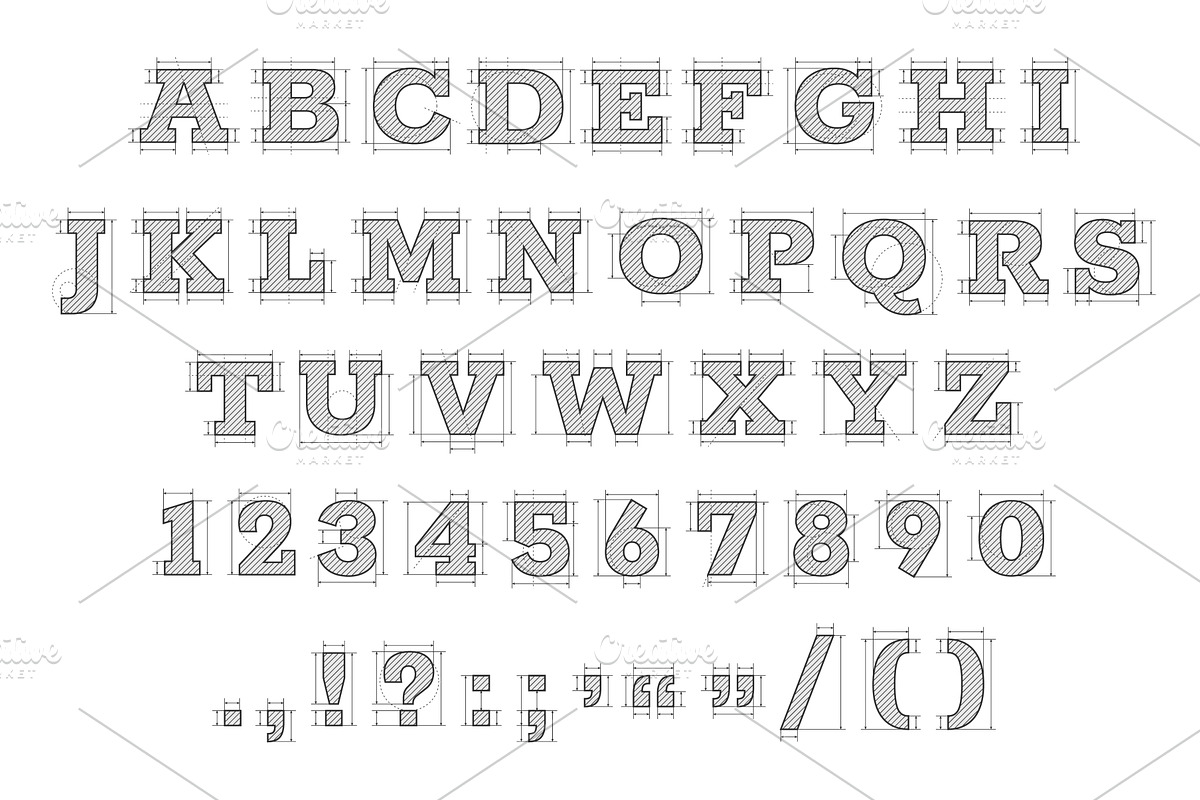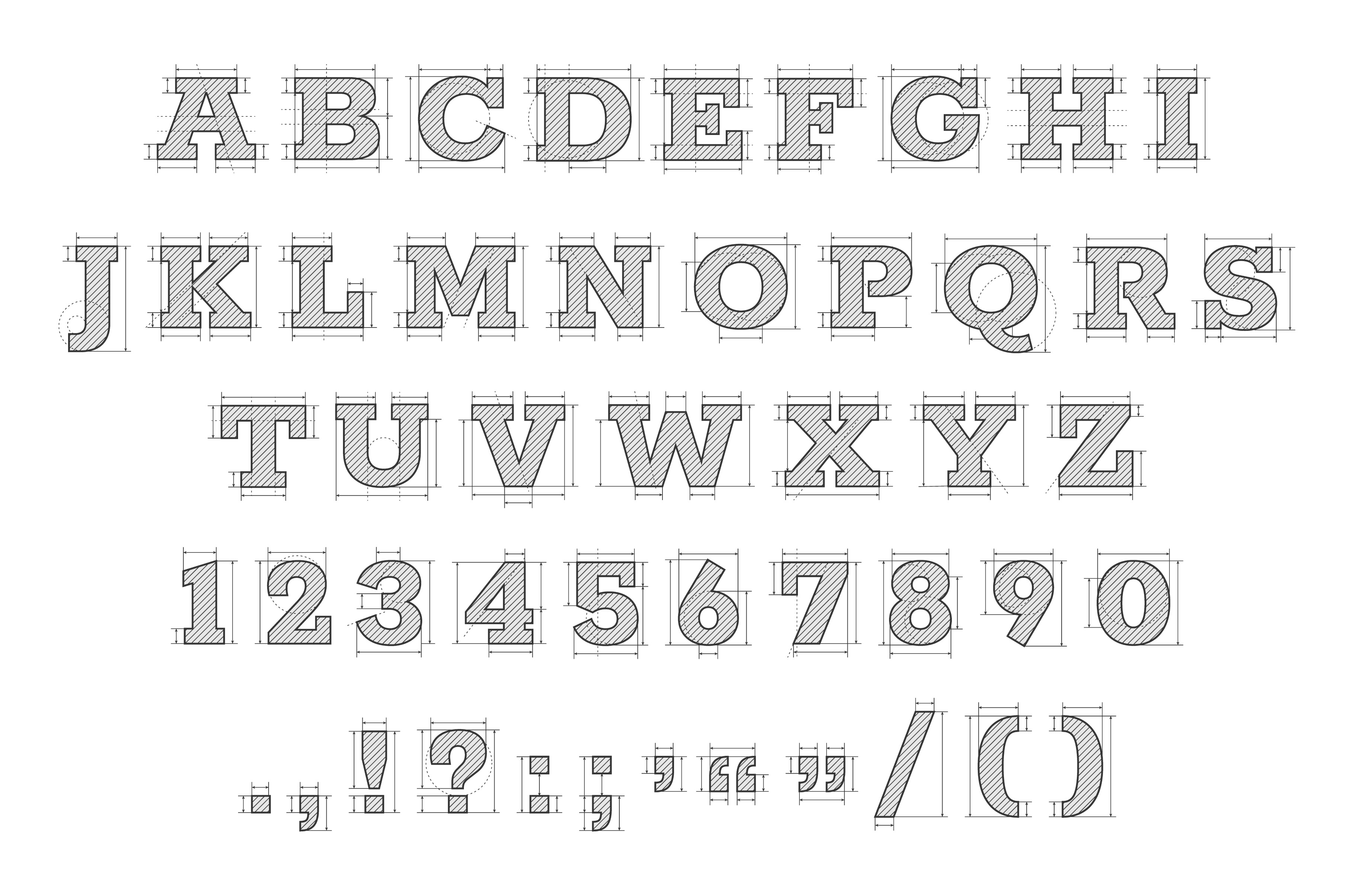
Engineering typeface. Abstract hand
Engineering typeface. Abstract hand drawn letters, doodle geometric alphabet construction sketch, old school penmanship symbols. Vector set of typography technical type illustration